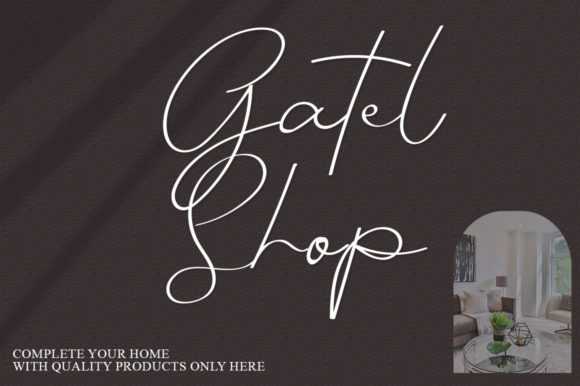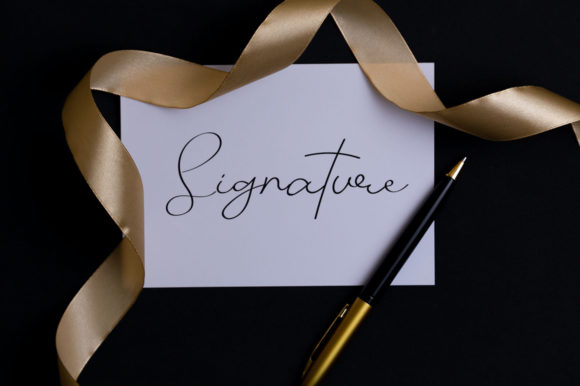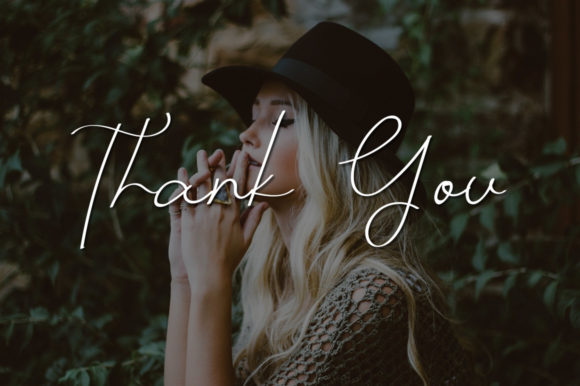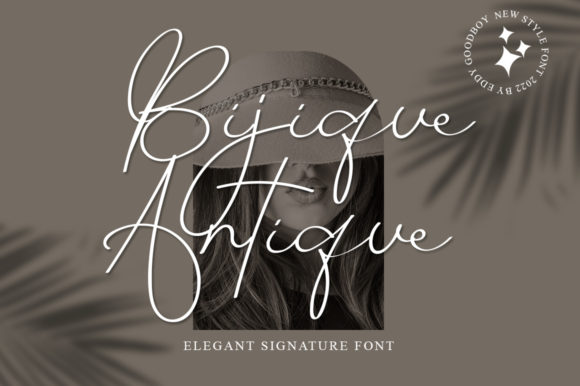
Bijique Antique Font: Elevate Your Designs with Elegance and Sophistication
In the world of typography, a beautiful font can make all the difference in elevating your designs from ordinary to extraordinary. If you’re a designer, craftsperson, or simply someone who appreciates the art of beautiful lettering, you’re in luck. Introducing Bijique Antique, a stunning script font that embodies the essence of elegance, sophistication, and refinement.
What is Bijique Antique Font?
Bijique Antique is a beautiful and slim script font that exudes a sense of freshness, cleanliness, and refinement. This gorgeous font is perfect for designers and crafters looking to add a touch of luxury and sophistication to their projects. Whether you’re working on a formal or informal design, Bijique Antique is sure to impress.
Key Features of Bijique Antique Font
- Beautiful and Slim Design: Bijique Antique boasts a slender, cursive design that is both elegant and refined.
- Fresh and Clean: The font’s clean lines and fresh aesthetic make it perfect for modern designs that require a touch of sophistication.
- Elegant and Refined: Bijique Antique’s classic script style is perfect for formal and informal projects that require a level of elegance and refinement.
- Highly Versatile: This font can be used in a wide range of projects, from wedding invitations and stationery to branding, packaging, and digital designs.
Use Cases for Bijique Antique Font
Bijique Antique is an incredibly versatile font that can be used in a variety of projects, including:
- Wedding Invitations and Stationery: Add a touch of elegance and sophistication to your wedding invitations, stationery, and other paper goods.
- Branding and Packaging: Use Bijique Antique to create luxurious brand identities and packaging designs that exude refinement and elegance.
- Digital Designs: Elevate your digital designs, such as website headers, social media graphics, and email newsletters, with the beauty and sophistication of Bijique Antique.
- Signage and Displays: Use this font to create stunning signage and display designs that are sure to grab attention.
Why Choose Bijique Antique Font?
With so many fonts available, why choose Bijique Antique? Here are just a few reasons why this font stands out from the rest:
- Unique and Distinctive: Bijique Antique’s slim, script design is both unique and distinctive, making it perfect for designers looking to create something truly special.
- Elegant and Sophisticated: This font exudes elegance and sophistication, making it perfect for formal and informal projects that require a level of refinement.
- Easy to Read: Despite its slender design, Bijique Antique is incredibly easy to read, making it perfect for body text and other applications where legibility is key.
Tips for Using Bijique Antique Font
To get the most out of Bijique Antique, here are a few tips to keep in mind:
- Pair with Bold Fonts: Pair Bijique Antique with bold, sans-serif fonts to create a striking contrast that adds visual interest to your designs.
- Use for Headings and Titles: Use Bijique Antique for headings and titles to add a touch of elegance and sophistication to your designs.
- Experiment with Colors: Don’t be afraid to experiment with different colors and textures to add depth and visual interest to your designs.